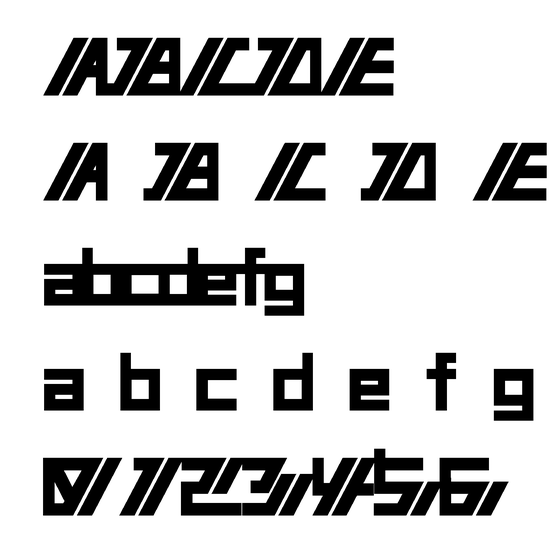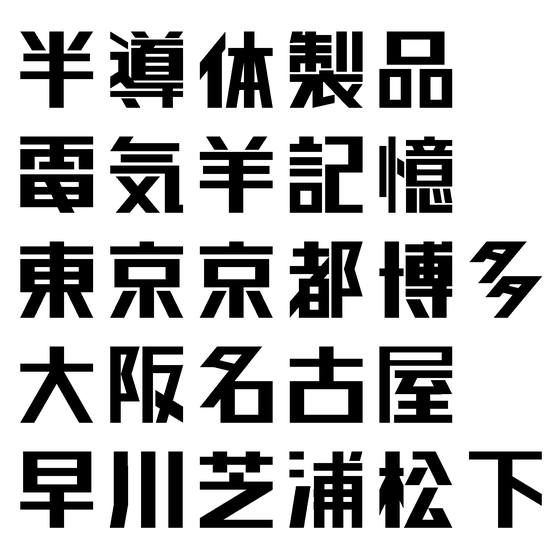
Free font 'Sharp old logo' designed based on the nostalgic old Sharp logo
We have also released the Kanji-only version of 'Kanjido Denkiten' for free.
There are two types of aspect ratio, Matsushita style and Toshiba style, for mixed planting.
Sharp began in 1912 when its founder Tokuji Hayakawa founded a metal processing business in what is now Shinohashi, Koto-ku, Tokyo. At first, we manufactured belt buckles, and the 'Hayakawa-style mechanical pencil' invented in 1915 was a so-called mechanical pencil, which became a big hit in the United States and grew significantly. After the end of the war, it became 'Sharp Trading Co., Ltd.' in 1948, and became one of Japan's leading comprehensive home appliance manufacturers, producing the first domestically produced mass-produced TV 'TV3-14T'. The font based on the katakana logo that Sharp used in the past is the old Sharp logo.
Hiragana
Uppercase / lowercase letters / numbers of the alphabet
Chinese characters. About 2200 Chinese characters have been added to Sharp's old logo ver.2, centering on educational Chinese characters, and the Chinese characters are designed based on the corporate logo centered on the current Panasonic 'Matsushita Electric'. And that. The 'Sharp old logo ver2.zip' also includes the Kanjido Denki store, so it is possible to plant them together.